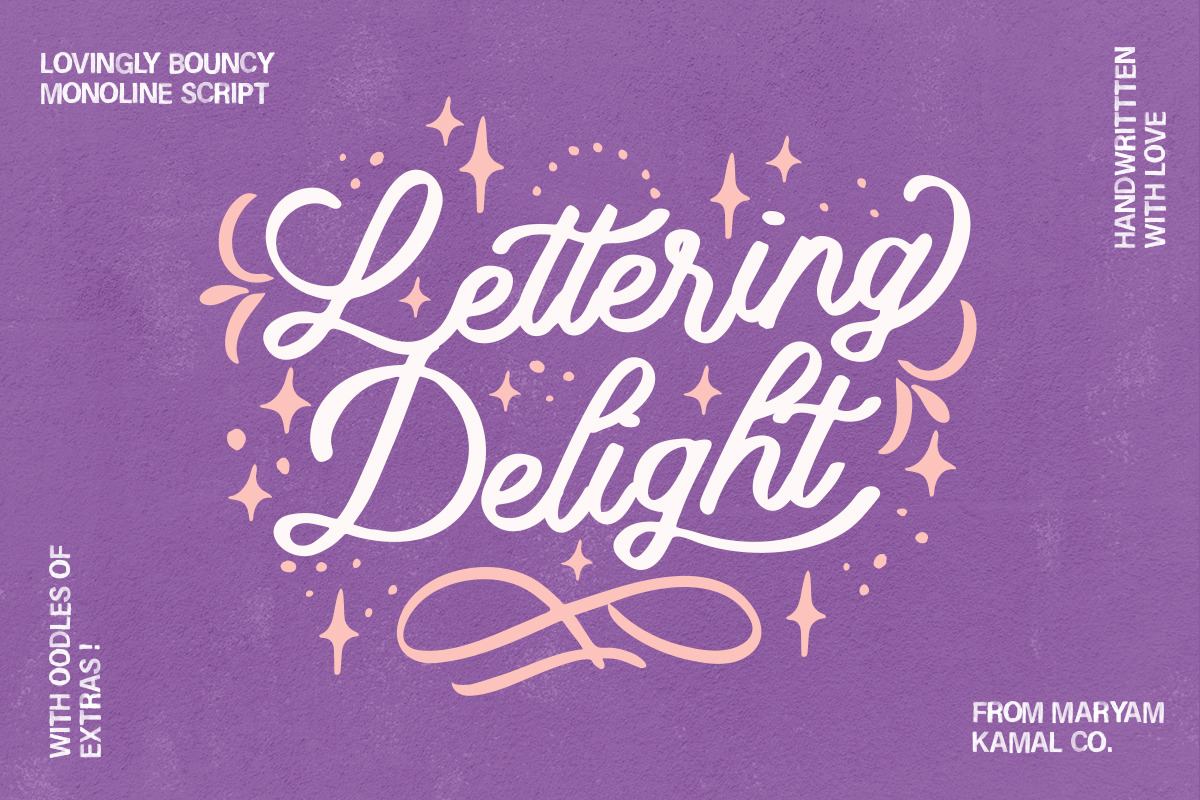
This charming font is perfect for handmade craft branding, artisan product packaging, calligraphy workshops, greeting card design, boutique signage, handlettering tutorials, creative stationery, and personalized gift projects. Its artistic character makes it ideal for projects requiring authentic handcrafted charm and creative expression.
Lettering Delight Font is exciting because it captures the pure joy and artistic freedom of hand lettering with carefully crafted letterforms that celebrate the beauty of human creativity and personal touch. The font features natural variations, organic flow, and delightful imperfections that mirror the spontaneous energy of skilled hand lettering artists. Its authentic handmade quality brings warmth and personality to digital designs while maintaining the artistic integrity of traditional calligraphy.
The Lettering Delight Font family typically includes multiple stylistic variations, decorative flourishes, and artistic elements that enhance creative expression. Many versions feature alternate characters with different personality traits, ligatures, and ornamental details that celebrate the art of beautiful lettering.
Whether you're developing artisan brands, creative workshops, or personalized design services, Lettering Delight Font Free Download provides authentic artistic charm with contemporary functionality. This typeface transforms ordinary communications into delightful expressions that resonate with craft enthusiasts and creative professionals who appreciate the beauty of handmade artistry. Its distinctive character adds immediate warmth and creativity to any project while celebrating the timeless appeal of Lettering Delight Font Free Download and the artistic satisfaction that comes from creating beautiful, personally meaningful letterforms.